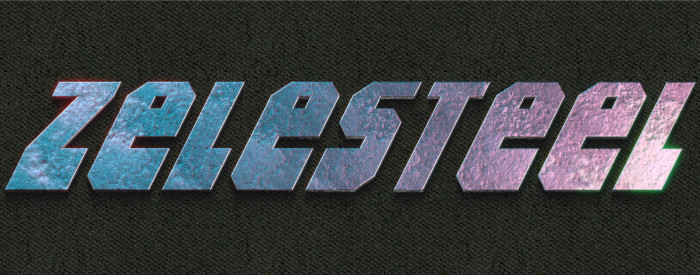
zelesteel eYe/FS
Well, I was not happy with the final look of my zelestia, so I tried to change the center of gravity of the font, which I managed to lighten its weight and basically alter its general appearance. I like this new, more dynamic and special look better... and I wish you would like it too. Let me know your opinion. Thanks a thousand.
Unicase italic font with many alternates (in the lower case zone), so much that it's almost like two fonts in one. Hope you like it.
Nice weight shift here, the comparative transition some what reminds me of a variable font interpolation